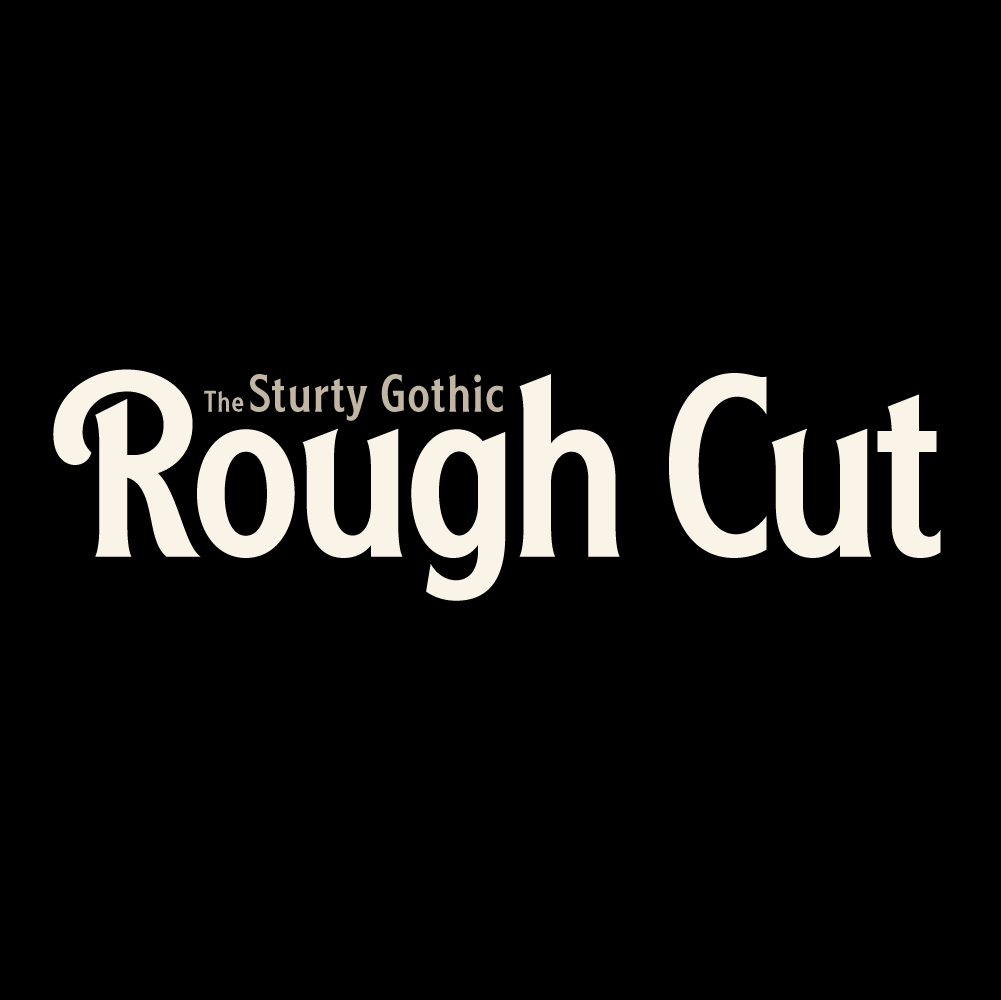
RoughCut
Rough Cut is a sturdy, gothic-style font with an approachable edge. It’s available separately in both Regular and Italic versions, each of which comes in both Clean and Rough styles. Each version has 259 glyphs, including 20 alternate characters and ligatures.